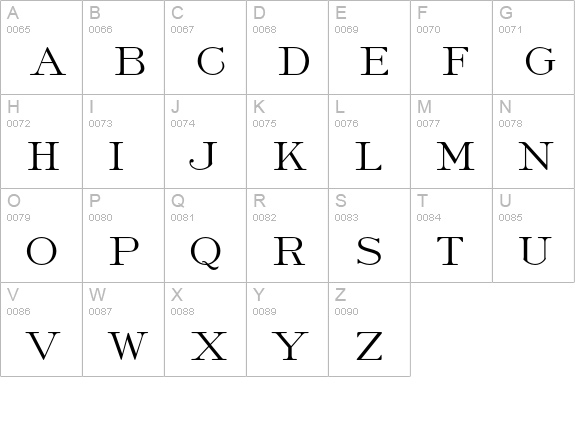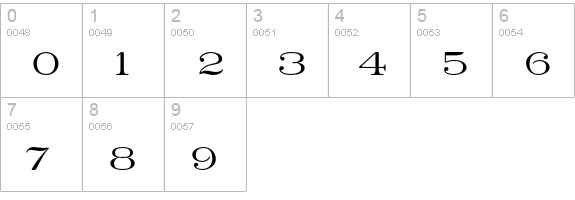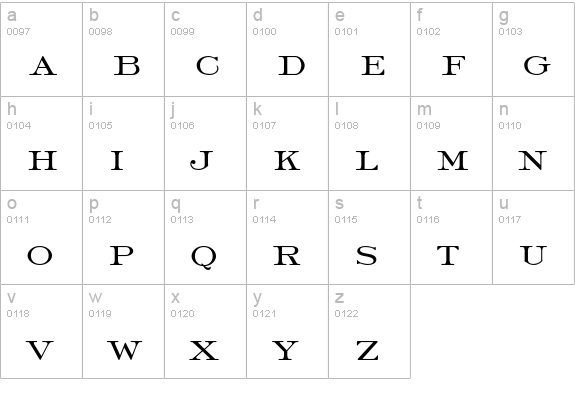
Light Roman Std Font Details
Light Roman Std is a refined, elegant variant in the Light typeface family \xE2\x80\x94 well suited to elegant body text, refined sub-headings, and luxury branding.
Light Roman Std is a stylish and elegant font that exudes sophistication and class. With its clean lines and modern aesthetic, this font is perfect for a wide range of design projects, from invitations to branding to web design. The light weight of this font adds a touch of delicacy and refinement to any text it is applied to, making it a versatile choice for both print and digital media. The best part? Light Roman Std is completely free to download at FontsMarket.com. This means that you can access this beautiful font without having to spend a penny, making it a great option for designers on a budget or anyone looking to add a touch of luxury to their projects without breaking the bank. Don't miss out on this fantastic opportunity to elevate your designs with Light Roman Std, available for free at FontsMarket.com.